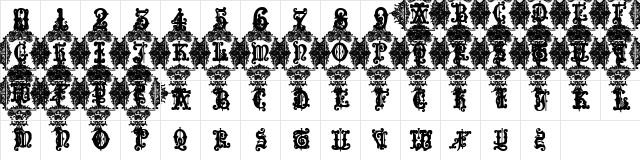
Complete Medieval Sorcerer Ornamental glyph index. Displaying only characters natively supported by Medieval Sorcerer Ornamental font.
Medieval Sorcerer Ornamental is built around its visual character rather than neutral utility - its distinctive forms are designed to make an impression at display sizes.
Font Pairing: Pair with a clean neutral sans-serif for body copy to let Medieval Sorcerer Ornamental's character lead without overwhelming the composition.
Pro Tip: Use Medieval Sorcerer Ornamental exclusively at display sizes - it was designed to be seen, not read at length. Let a neutral companion handle body copy.